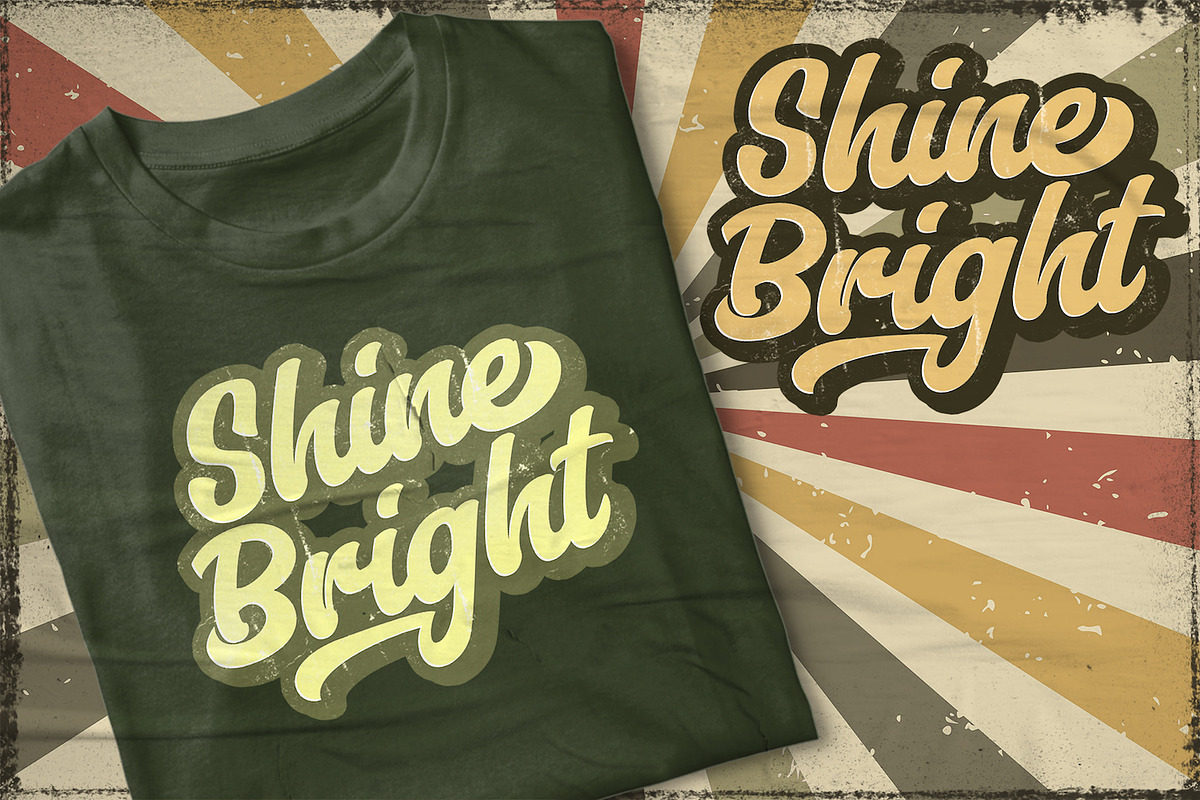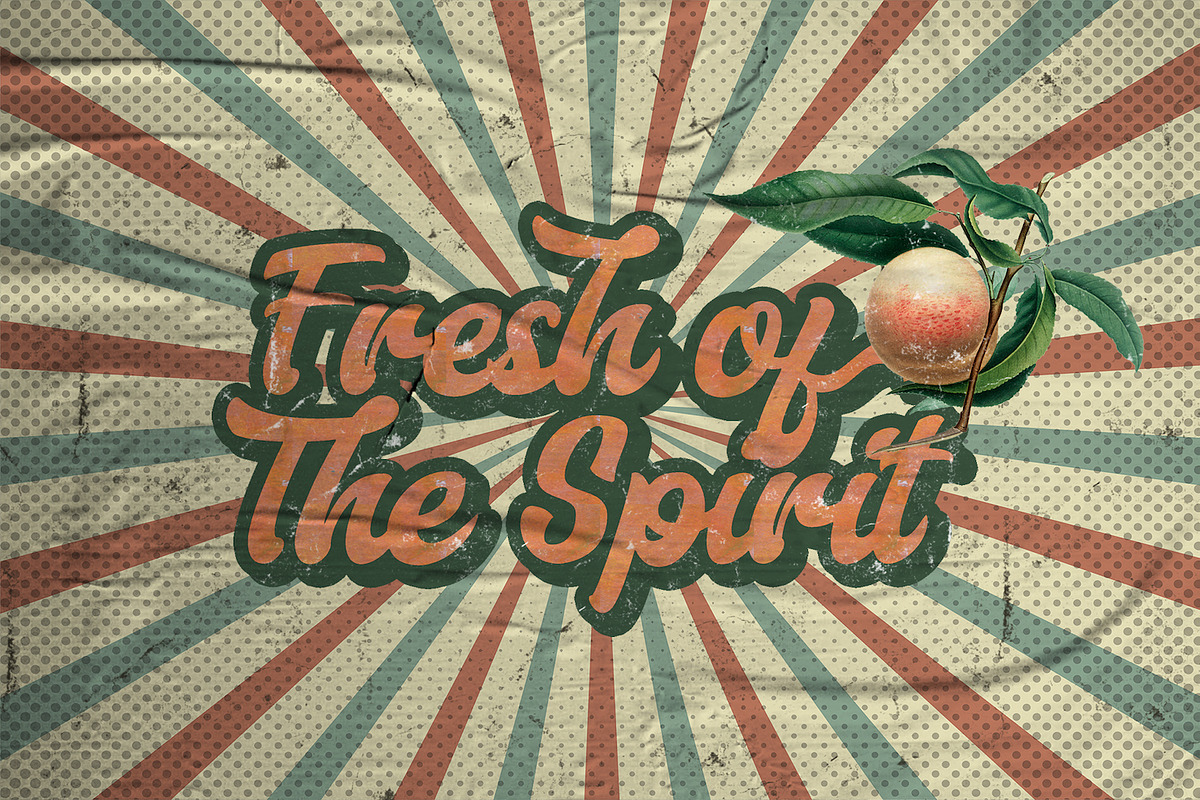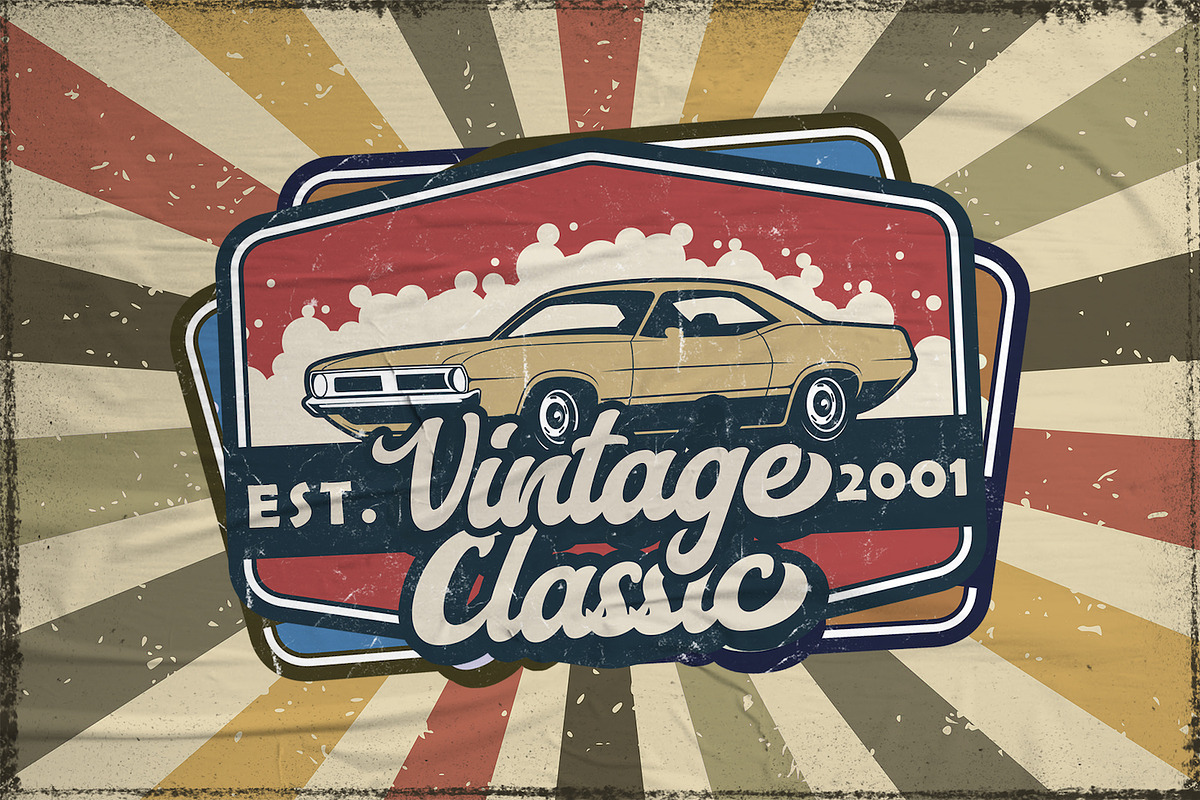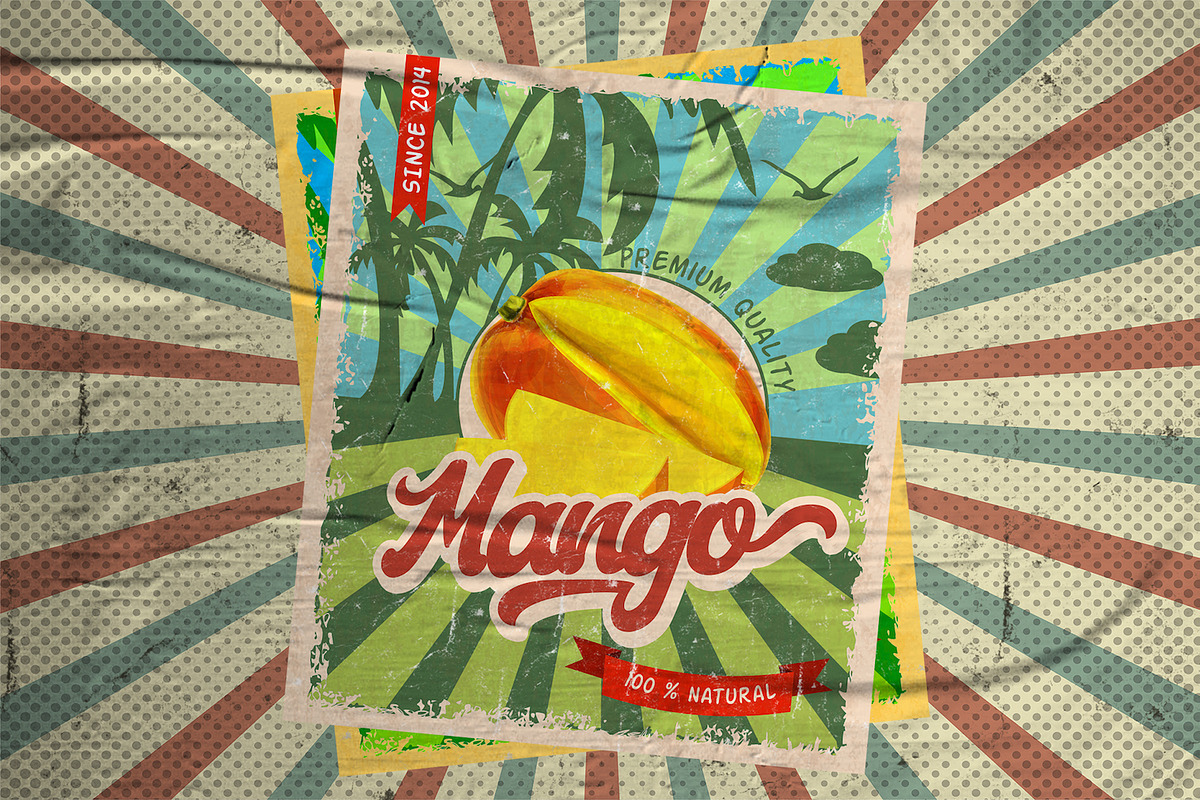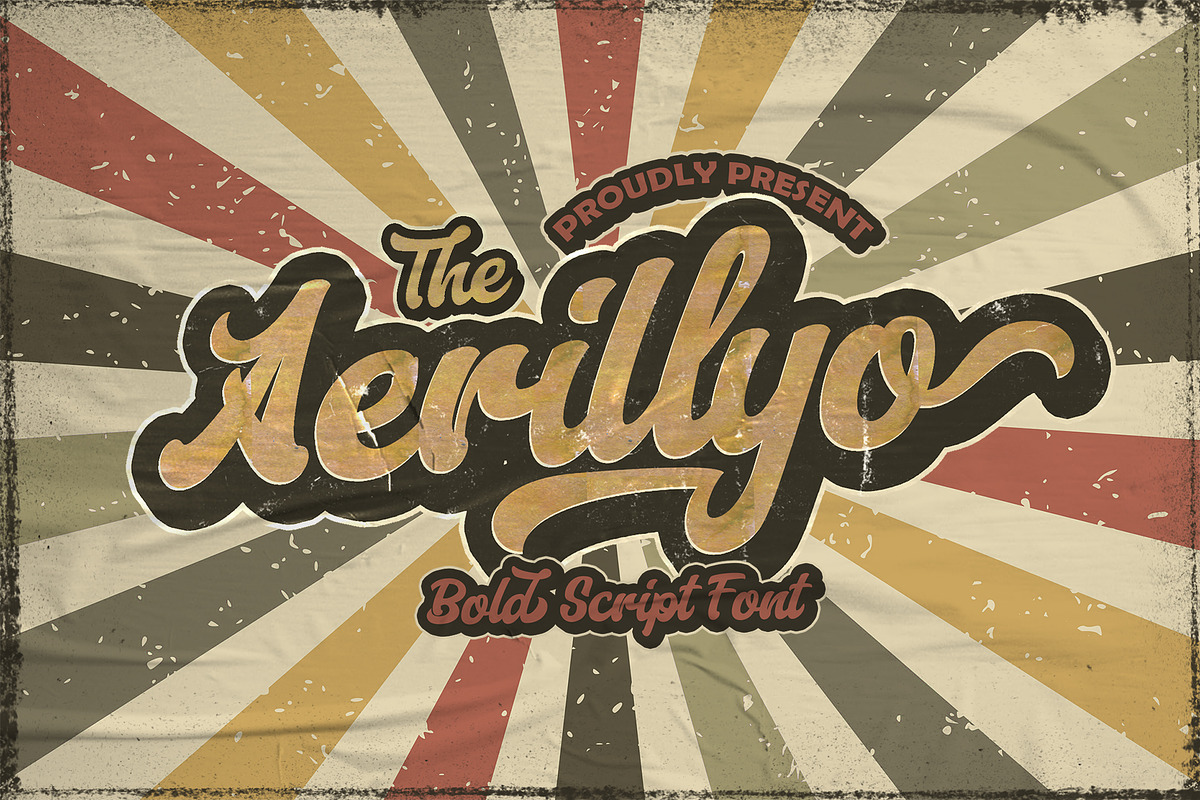
Aerillyo - Retro Bold Script Font
Introducing Aerillyo - Retro Bold Script Font
The Aerillyo is a strong and bold script font. It’s curved and rounded in every single touch, and has an unique vintage and retro styles that’s perfect for branding. The Aerillyo font is suitable for all your retro, vintage, and 80s style projects.